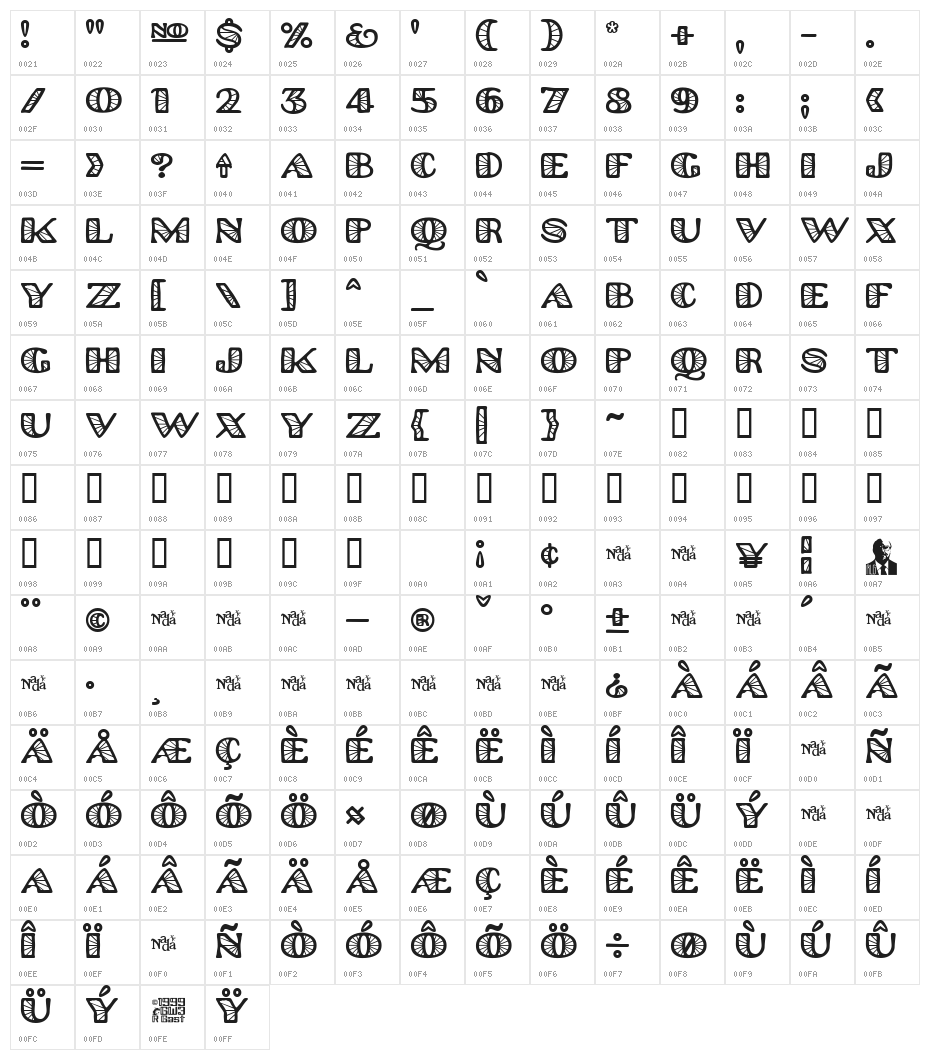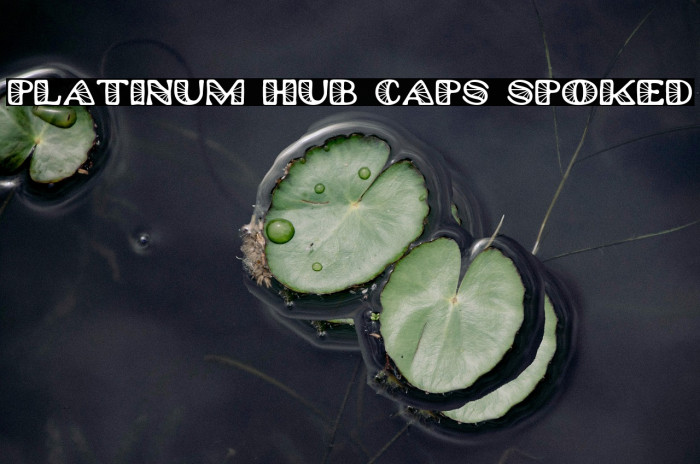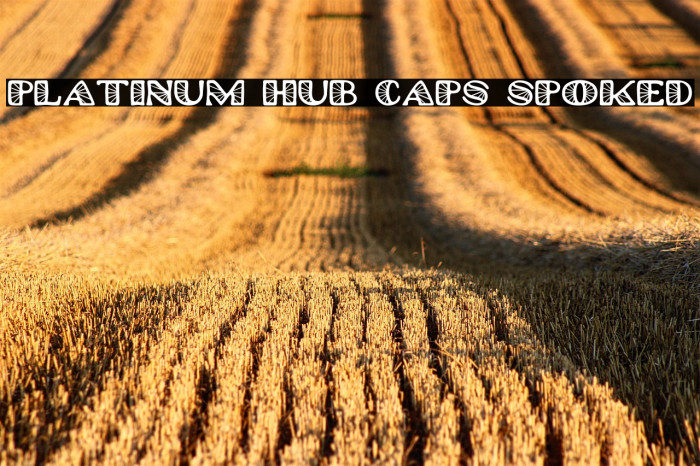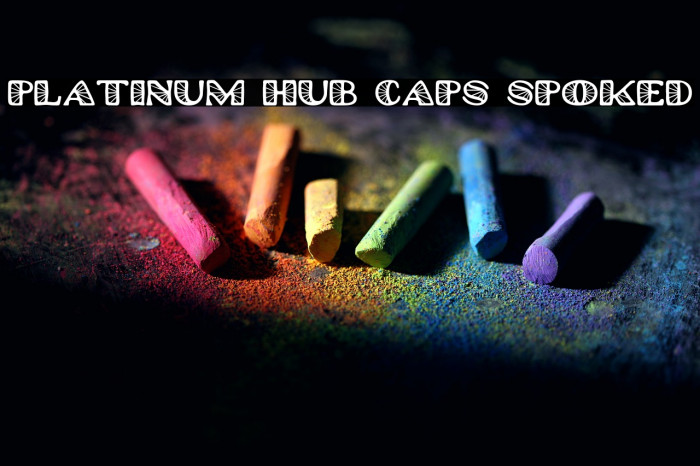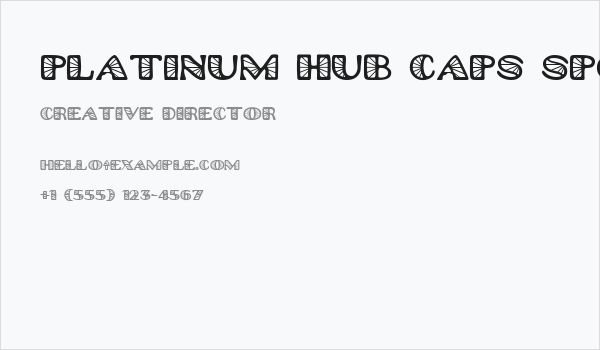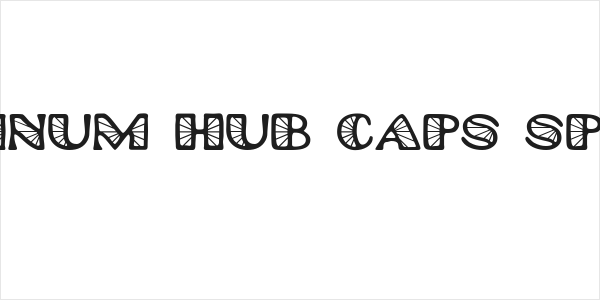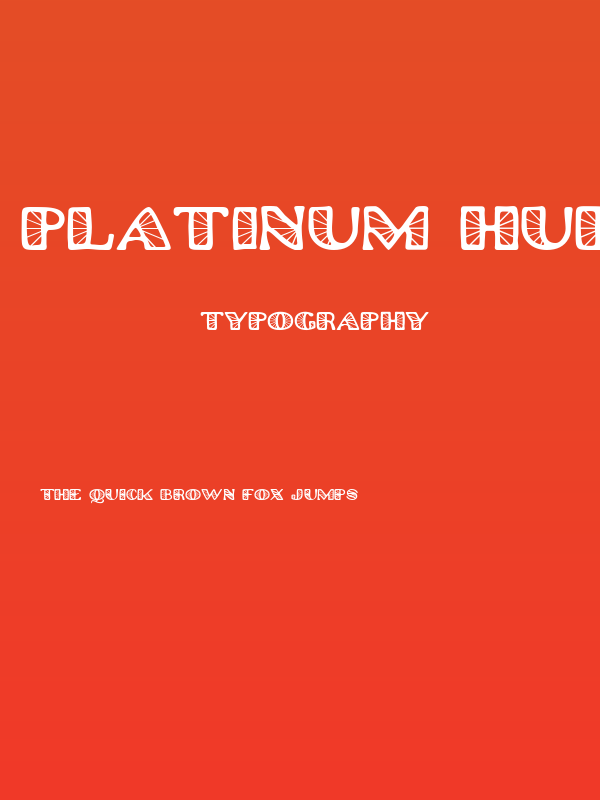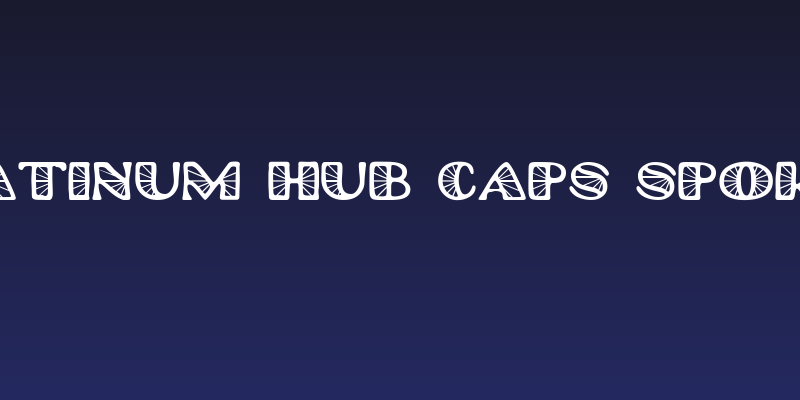
Platinum Hub Caps Spoked Font
Platinum Hub Caps Spoked Description
This font features a unique and decorative style, characterized by bold, geometric letterforms with intricate patterns inside each character. The uppercase and lowercase letters maintain a consistent design, with a playful yet structured appearance. The numbers and special characters follow the same design principles, ensuring a cohesive look across all glyphs. The font's distinct style makes it ideal for eye-catching designs, where the text needs to stand out and make a statement. Its bold and artistic nature lends itself well to creative projects.